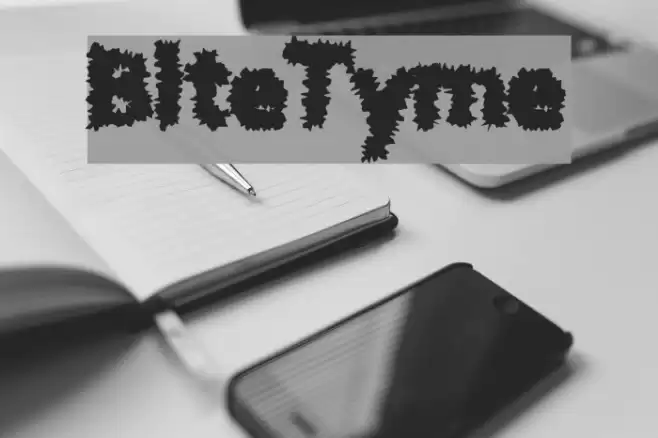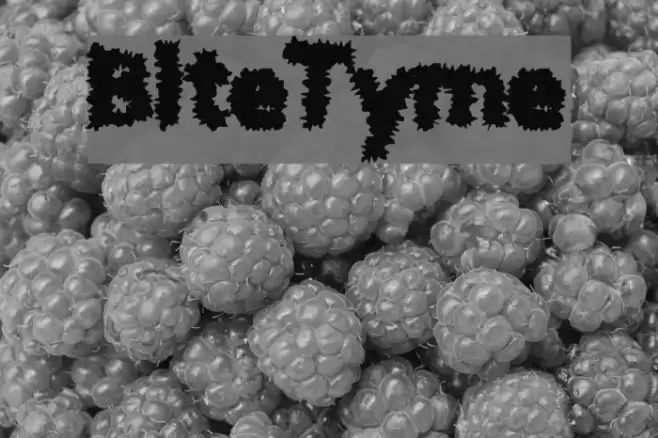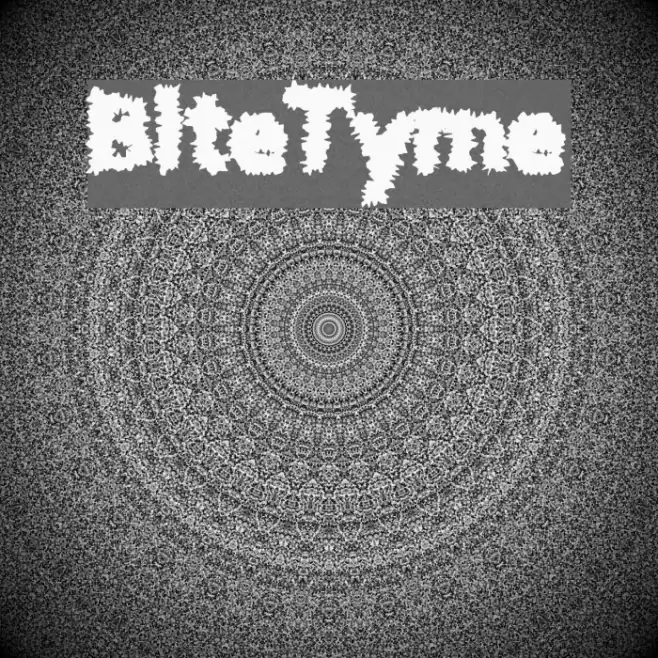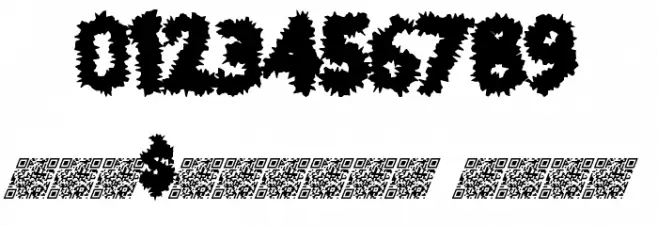
BiteTyme Font
BiteTyme Description
This font features a bold and jagged design, reminiscent of sharp, thorny textures. Each character is filled with irregular, spiky edges, creating a sense of movement and intensity. The uppercase and lowercase letters maintain a consistent style, with the jagged edges giving them a unique, eye-catching appearance. Numbers and special characters follow the same design principles, ensuring a cohesive look across all elements. The font's aggressive and dynamic style makes it stand out, perfect for projects that require a bold statement.
A bold, jagged font with sharp, thorny edges for a dynamic look from Distorted Eroded fonts.
- Proposed Projects: Ideal for horror-themed designs, edgy posters, album covers, and any project needing a bold, striking impact.